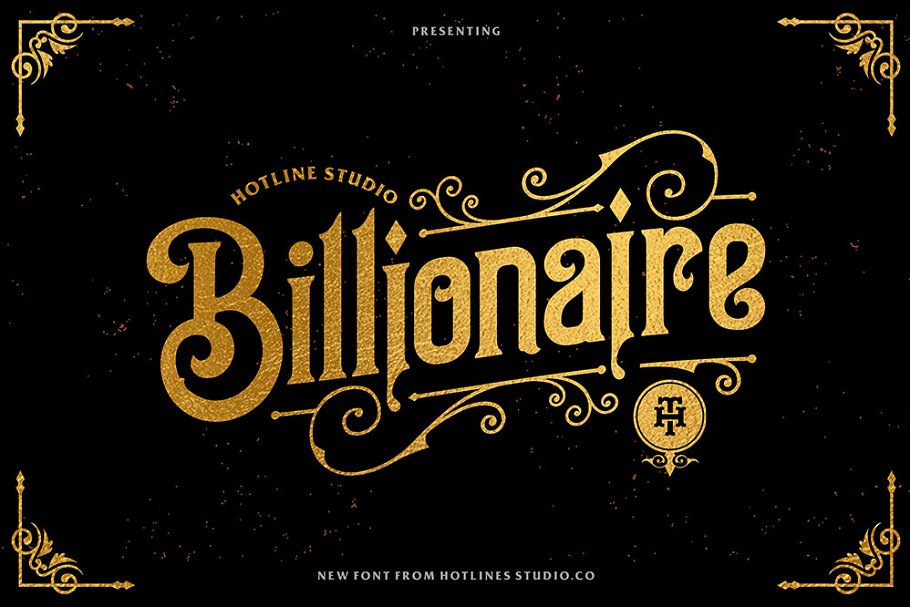
Are you tired of using the same old fonts in your creative projects? Look no further than Billionaire typeface, the new font from HTLNS studio that will elevate your designs to the next level.
With its elegant and vintage feel, Billionaire typeface is perfect for adding a touch of class to your designs. The character set includes a full set of capital and lowercase letters, as well as multi-lingual support, currency figures, numerals, punctuation, and some extra glyphs. And with the option to mix uppercase and lowercase letters and alternative glyphs, the creative possibilities are endless.
But that's not all – when you purchase Billionaire typeface, you also get the Billionaire typeface Ornament and Ornament bonus. And with features like Character Set A-Z, Numerals & Punctuations (OpenType Standard), Accents (Multilingual characters), and Stylistic Alternates, Billionaire typeface is a versatile font that can be used in a wide range of creative products and designs.